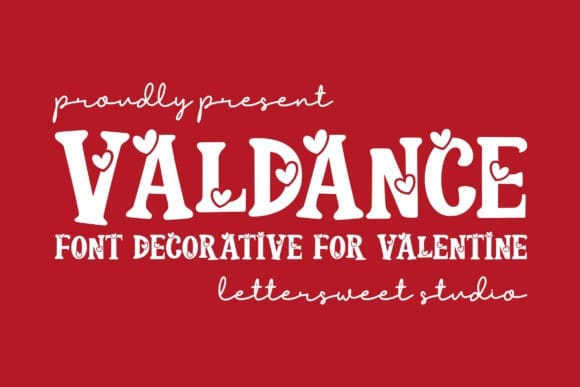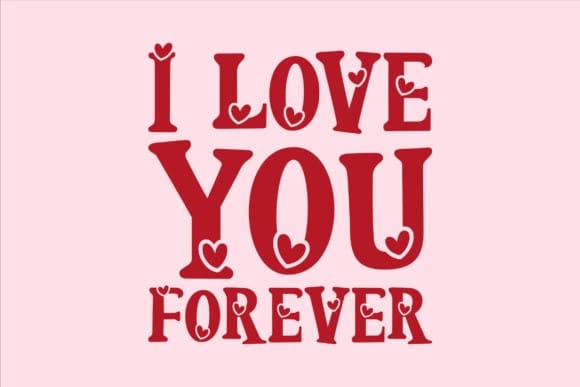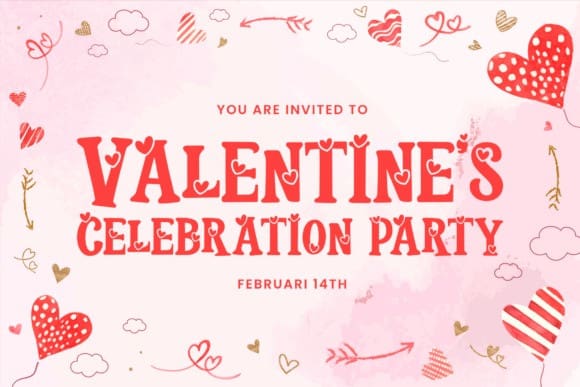
Valdance Decorative Font
Valdance Decorative Font is a charming and playful decorative font designed specifically for Valentine’s Day. Its bold yet elegant style, enhanced with heart-themed accents, makes it perfect for romantic and festive designs. Whether you’re crafting greeting cards, event invitations, or love-themed projects, Valdance adds a touch of affection and creativity to your designs. Celebrate love in style with this delightful typeface!